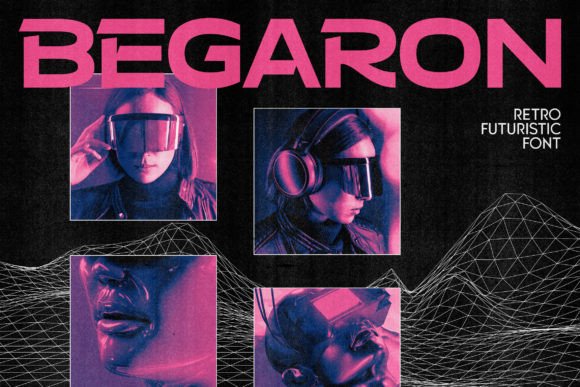
Prepare to embark on a mesmerizing journey where typography meets innovation! Introducing Begaron, the font that transcends the boundaries of time and seamlessly blends the charm of the past with the boundless possibilities of the future. Inspired by the electrifying era of the 1950s and 1960s, Begaron captures the essence of boundless optimism and the unyielding belief in a world brimming with flying cars, intelligent robots, and cosmic adventures.
Experience the allure of Begaron, meticulously crafted to transport your audience to a realm where dreams take flight. Each letter, meticulously designed, radiates with a retro-futuristic charm, evoking a sense of nostalgia while simultaneously propelling you into a world of boundless possibilities. Unleash your creativity and let Begaron elevate your projects to unparalleled heights.
Step into a world where imagination knows no limits, where Begaron's sleek lines and captivating curves command attention and leave a lasting impression. Dive into a font family that's not just a collection of letters but a gateway to a world where technology and art harmoniously coexist. Begaron is your passport to a realm where innovation thrives and design takes center stage.